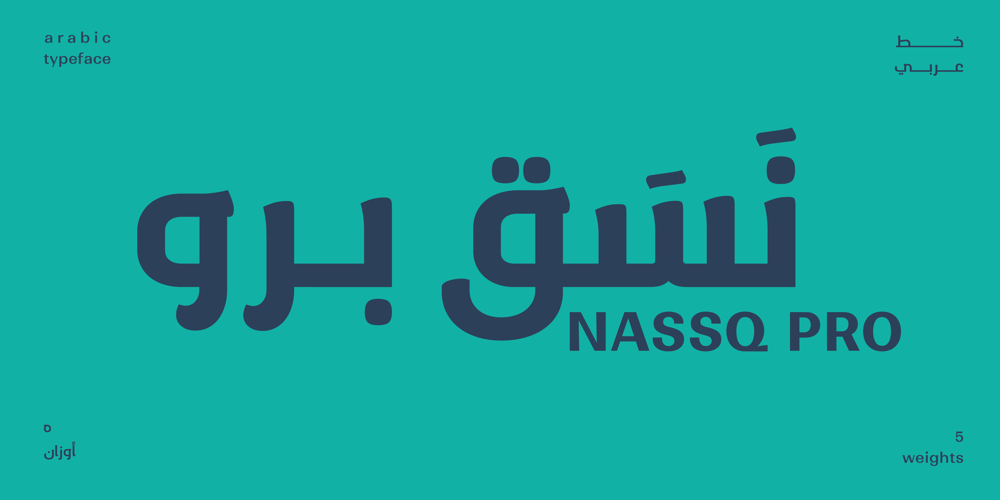
Nassq Pro Font Family was designed by Omar Yahia and published by Omartype. Nassq Pro contains 5 styles and family package options. This is a decorative Arabic font designed specifically for titles and headlines. It comes in five weights ranging from light to extra bold, providing options for different styles of titles and highlighting. The bold style and gently curved terminals make the font readable from a distance and suitable for applications where large font sizes are needed. The rounded yet authentic Arabic letters give the font an aesthetically pleasing appearance with a calligraphic and stylish vibe suitable for a variety of modern purposes. While maintaining the integrity of the Arabic script, the added flares and a touch of handmade imperfection makes this font perfect for use in magazines, blogs, websites, signage, invitations, stationery and other graphic design projects.